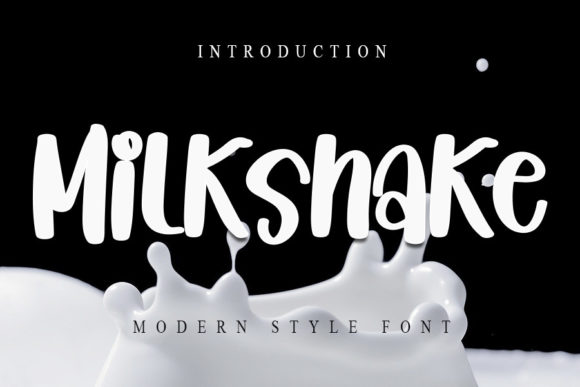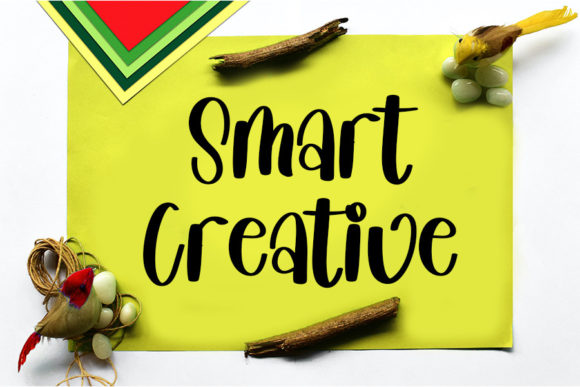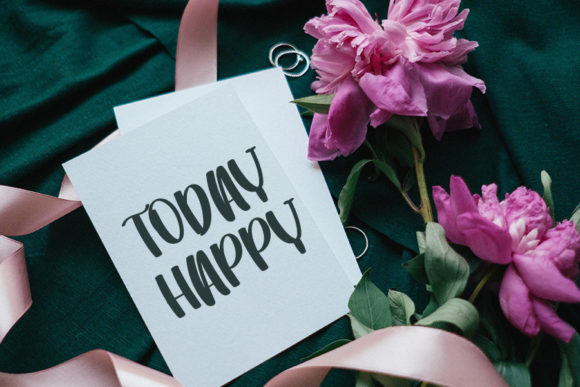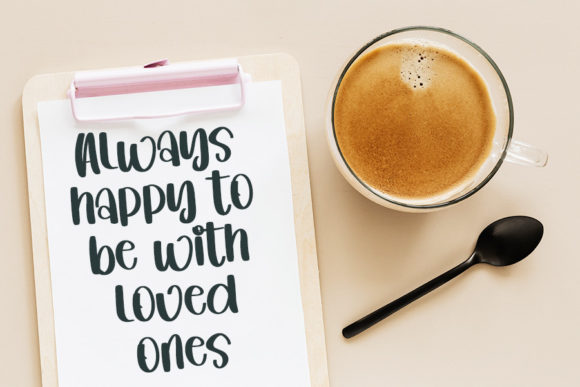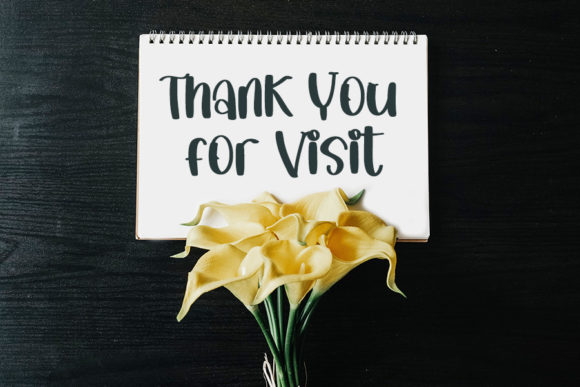
Milkshake Font
About Milkshake Font
Milkshake is a chic, modern and thick lettered handwritten font. Suitable to a wide variety of designs, this font has the potential to become your favorite go-to font, no matter the occasion!